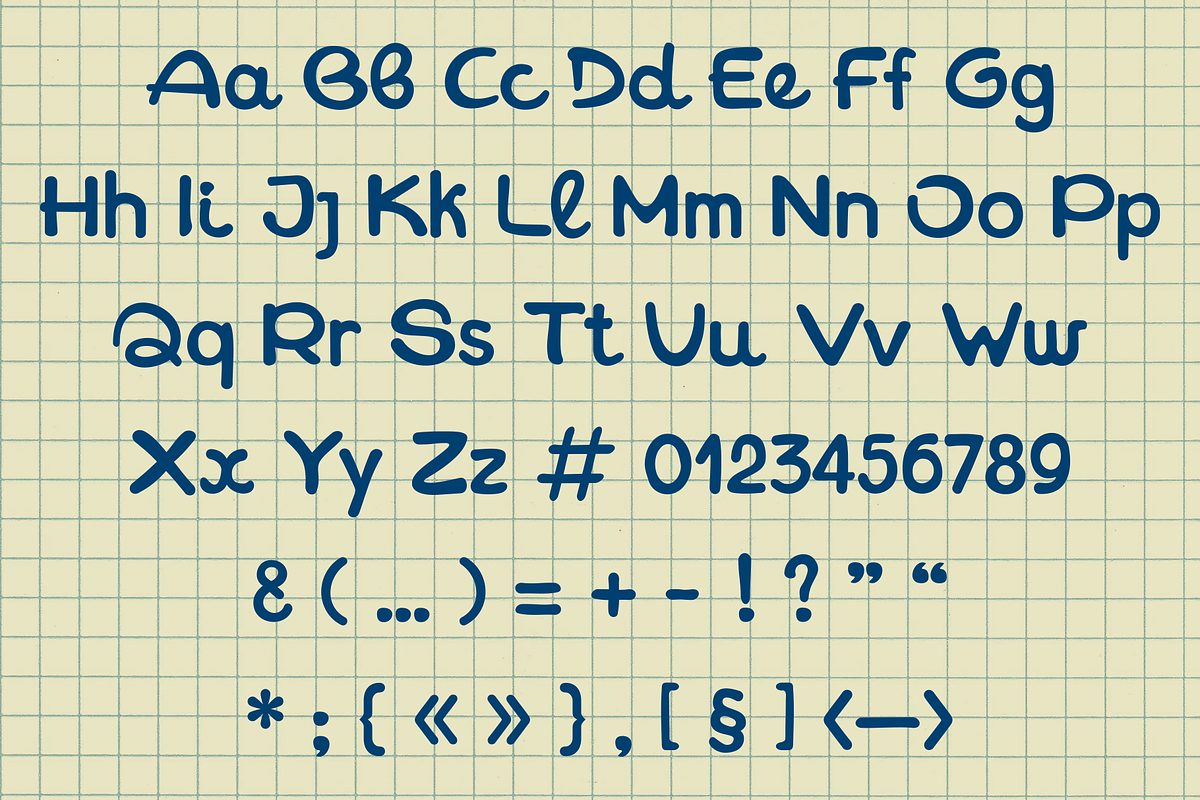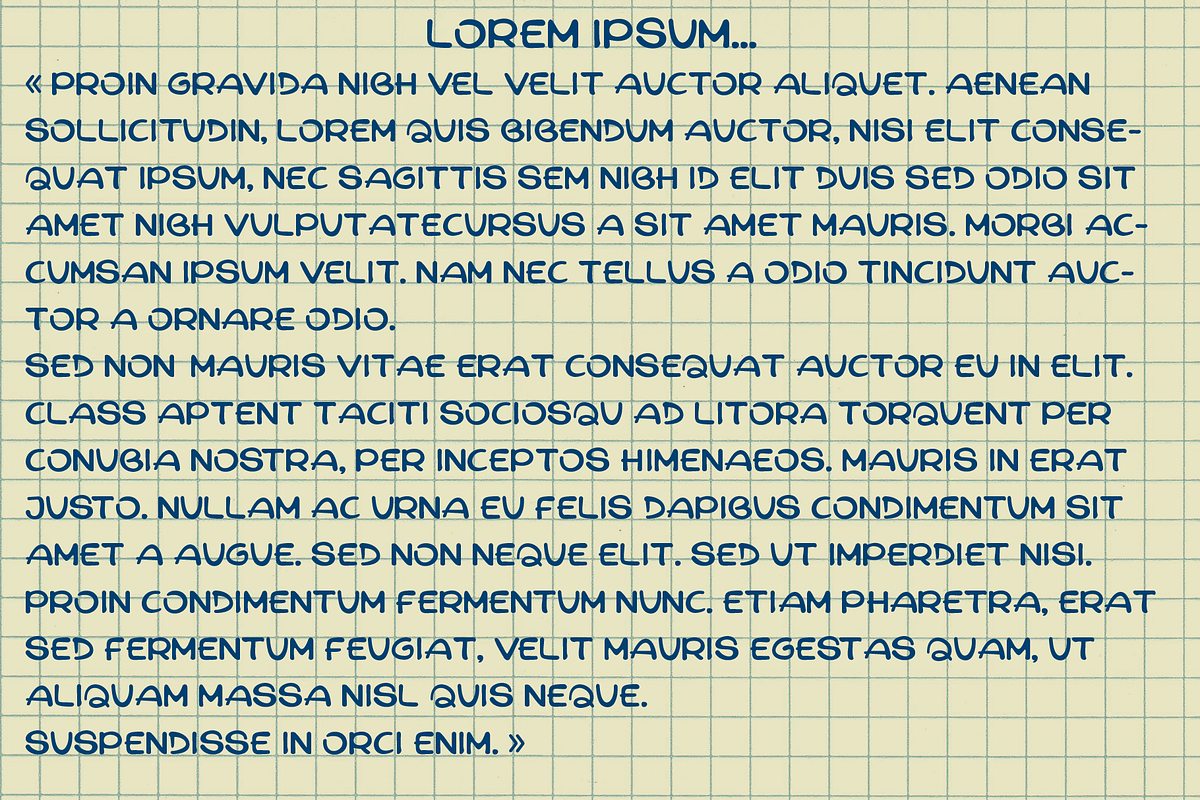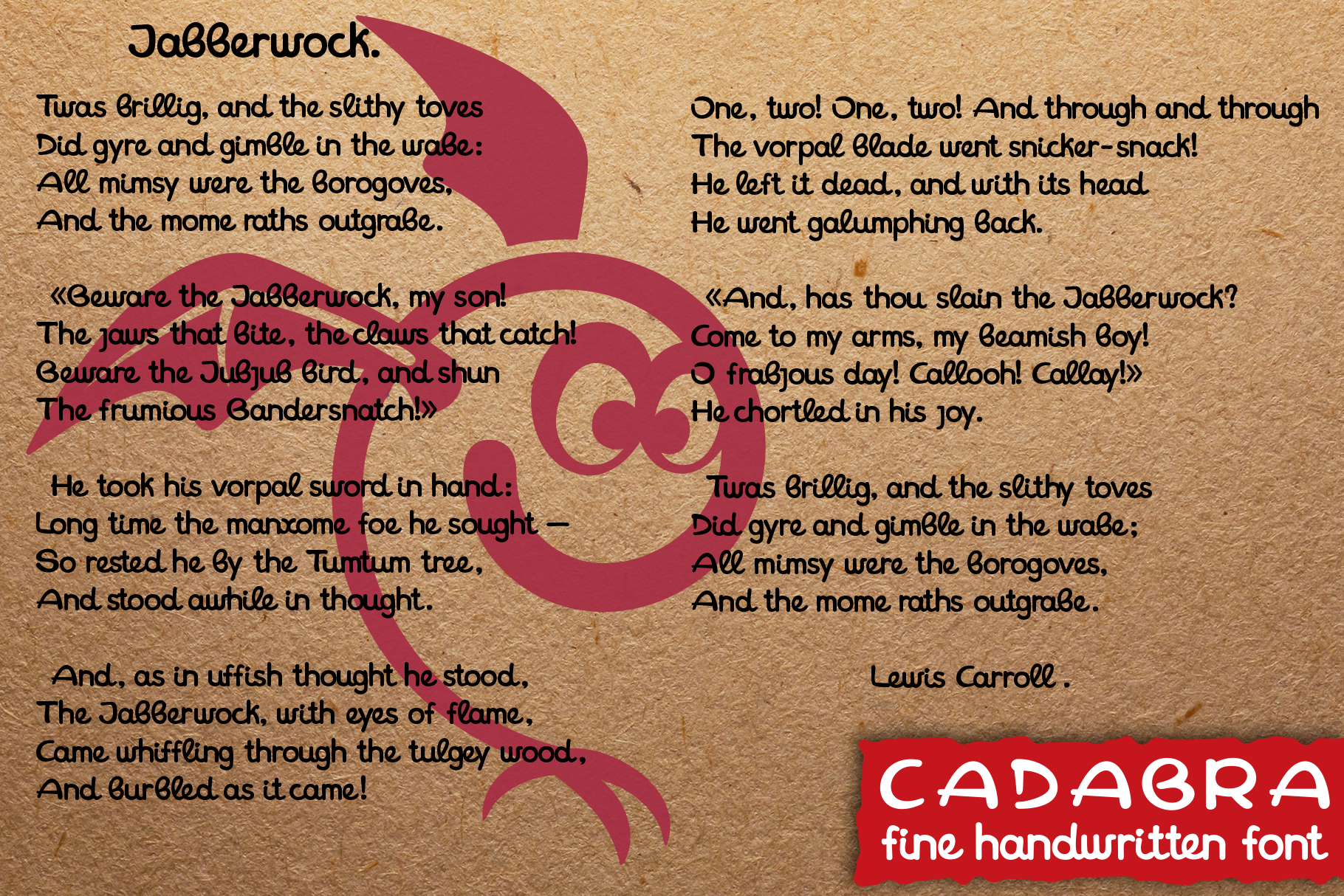
Cadabra_font
Cadabra it's a lovely, fun handwritten font for your bold design. Enjoy the Cadabra). Archive contents: otf & ttf files. If you find a bug, or you have questions, please write to me about it.